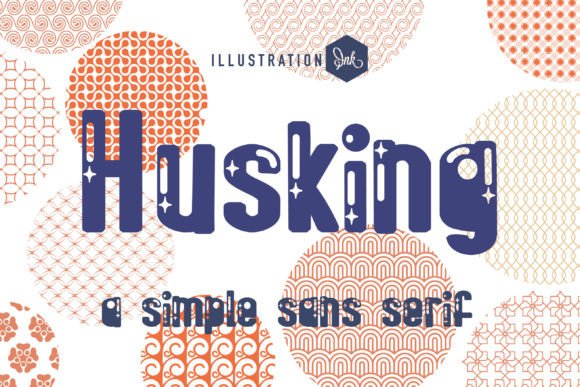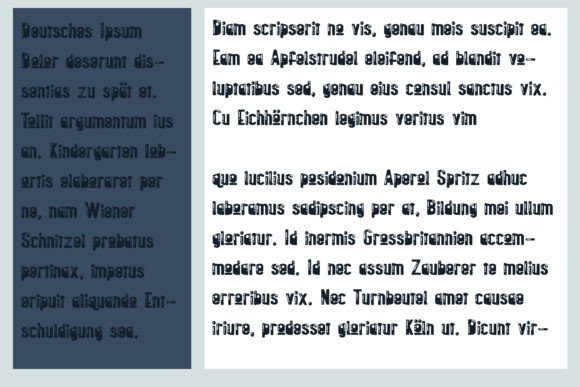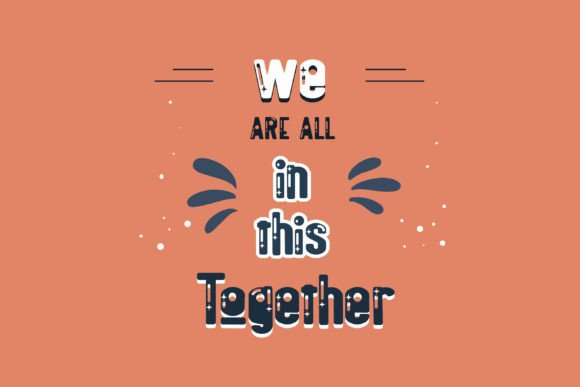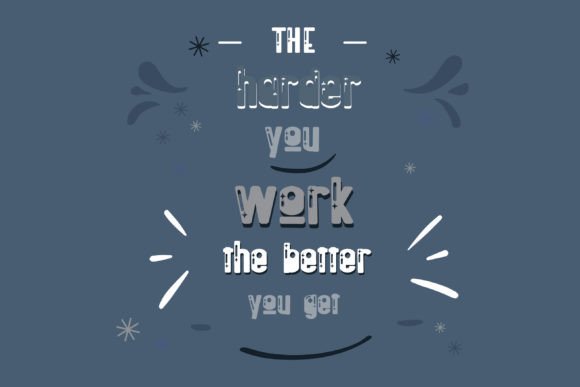
Husking Font
About the Husking Font
Let us introduce you to Husking Font, where timeless design meets modern craftsmanship. This hand-crafted sans serif is boxy, squat, and whimsical.
Highlighted version included.
Husking Font’s playful, yet sturdy design makes it ideal for headlines, short text blocks on posters, and branding elements where a bold, whimsical feel is desired. It works exceptionally well for packaging design, particularly for products targeting a younger demographic or those with a handcrafted, artisanal aesthetic. However, its squat letterforms and relatively wide x-height make it unsuitable for extended body text or UI elements, where readability is paramount.
Pairing Husking Font with a clean sans-serif like Lato for body copy provides a strong contrast and excellent readability. For a more sophisticated feel, consider pairing it with a classic serif like Garamond for supporting text, creating visual balance between the whimsical and the traditional. A script font such as Allura could also work well, adding a touch of elegance to offset Husking Font’s bolder personality.
The overall personality of Husking Font is best described as friendly and approachable, yet confident and bold. It projects a sense of handcrafted charm and authenticity, making it a strong choice for brands emphasizing these qualities.
Husking Font Usage Examples
Husking Font Example